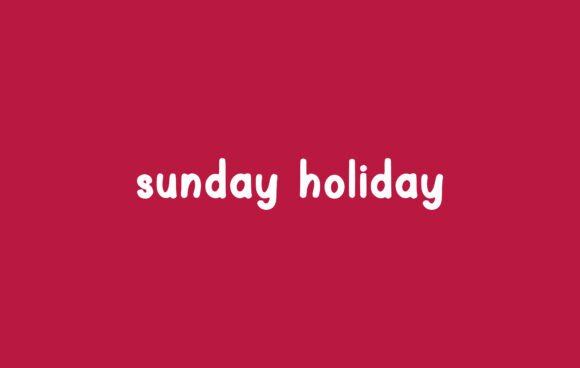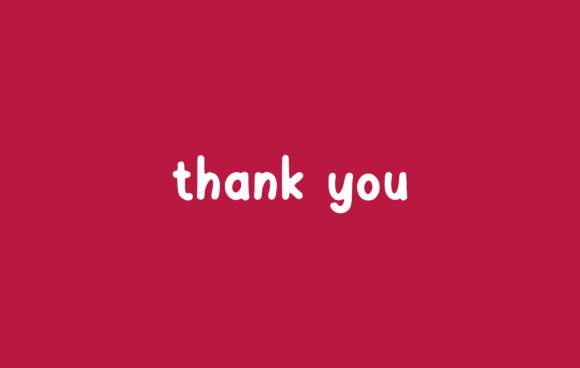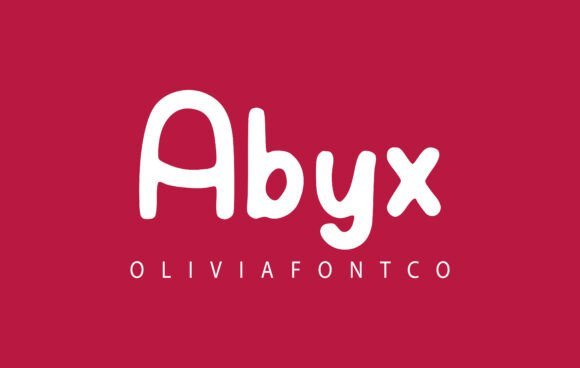
Unleash Your Creativity with Abyx Font
Have you ever found yourself stuck in a creative rut, unable to put your thoughts into words? It’s a familiar feeling for many designers, but what if I told you that there’s a font that can help you break free from that block? Enter the Abyx Font, a beautiful, authentic handwritten font that adds a touch of romance to your designs.
Designed to elevate your creative ideas, the Abyx Font is perfect for a wide range of projects, from magazine headlines and social media posts to wedding invitations and branding materials. Its legibility and charm make it an excellent choice for body text or titles, and its versatility is unmatched. Whether you’re a seasoned designer or just starting out, the Abyx Font is an invaluable addition to your toolkit.
Abyx Font Key Features
• Character Set: The font includes a comprehensive character set, covering Latin, Cyrillic, and Greek alphabets, as well as a range of punctuation and symbol characters.
• Unique Characteristics: Abyx Font features a distinctive, modern design with a mix of geometric and organic elements, making it suitable for a wide range of applications, from body text to display headings.
Abyx Font Review
• The Abyx Font has a unique and modern design aesthetic that sets it apart from other fonts. It’s perfect for designers looking to add a touch of sophistication to their projects.
• The font is highly legible, even at small sizes, making it ideal for use in digital applications where space is limited.
• The Abyx Font is highly customizable, with a wide range of font weights and styles available.
• The Abyx Font can be a bit difficult to read at very large sizes, as the design becomes somewhat pixelated.
• The font may not be suitable for use in print applications where a high level of detail is required.
Overall, I think the Abyx Font is a solid choice for designers looking to add some visual interest to their projects. While it may have some limitations, its unique design and high level of customizability make it a great option for a wide range of applications.
Tips for Getting the Most Out of Abyx Font
For optimal results, use Abyx font in headings and titles to create a clean and modern look. Pair it with serif fonts for body text to create visual balance.
Alternatives to Abyx Font
Montserrat is a popular sans-serif font designed by Julieta Ulanovsky. It is suitable for modern and minimalist designs. Montserrat is more versatile than Abyx Font as it comes in multiple weights and styles, making it ideal for a wide range of applications.
Open Sans is another popular sans-serif font designed by Steve Matteson. It is clean, simple, and highly legible. Open Sans is more readable than Abyx Font in digital formats, making it suitable for digital design projects.
Inter is a sans-serif font designed by Rasmus Andersson. It is highly legible and suitable for modern designs. Inter is more geometric than Abyx Font, making it ideal for designs that require a clean and minimalist aesthetic.